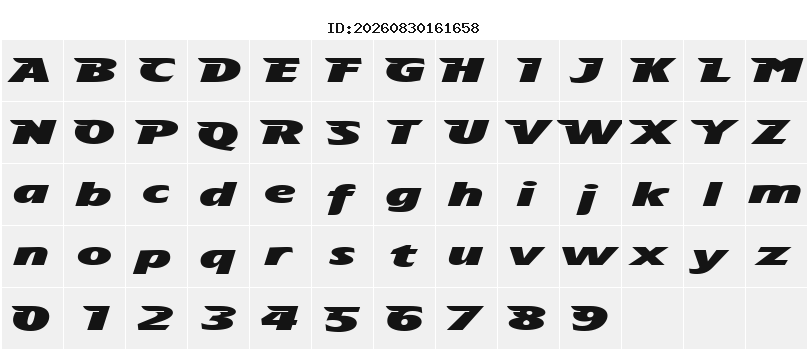
• Font Name: The Aeroplane Flies High
• Font Style: Heavy
• Full Font Name: The Aeroplane Flies High Heavy
About The Aeroplane Flies High.ttf
The Aeroplane Flies High.ttf is a modern, elegant sans-serif font designed for ultimate readability and visual harmony. Perfect for branding, headlines, web design, and print materials.